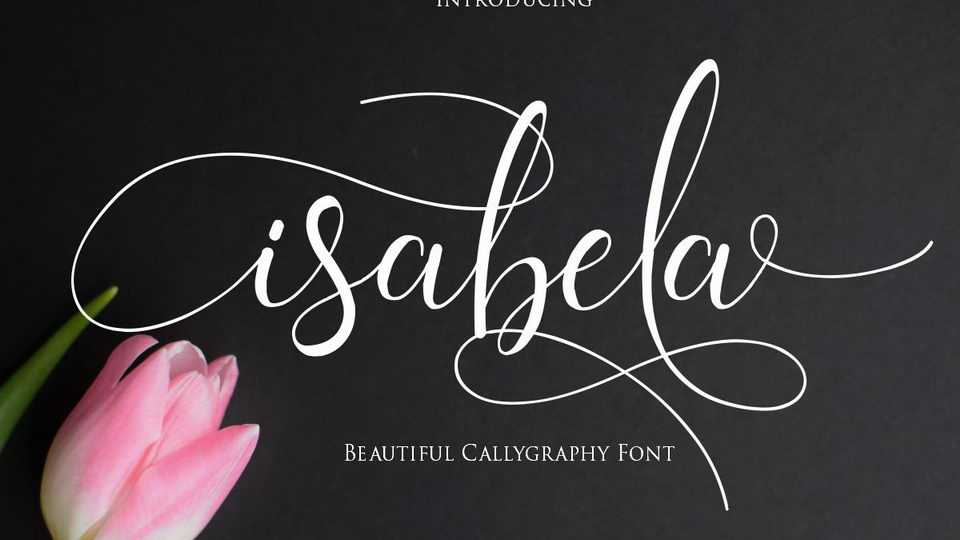
Download Isabela font, a romantic calligraphy script with natural and elegant flow. Isabela font is perfect for logo, wedding, social media, label, photography watermark, special events or anything.
Designer: Gilar Studio